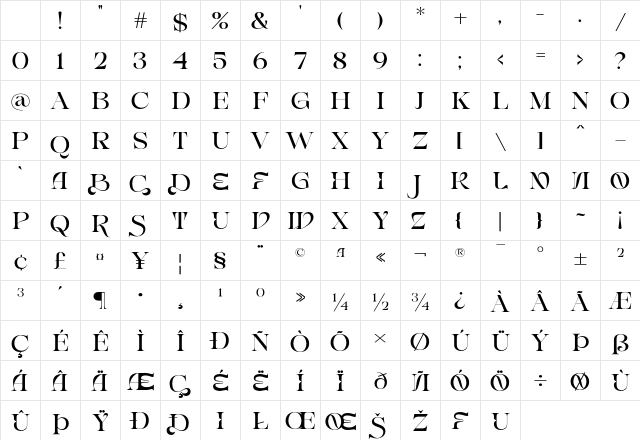
Complete Erakov Display Regular glyph index. Displaying only characters natively supported by Erakov Display Regular font.
Erakov Display is built around its visual character rather than neutral utility - its distinctive forms are designed to make an impression at display sizes.
Font Pairing: Pair with a clean neutral sans-serif for body copy to let Erakov Display's character lead without overwhelming the composition.
Pro Tip: Use Erakov Display exclusively at display sizes - it was designed to be seen, not read at length. Let a neutral companion handle body copy.